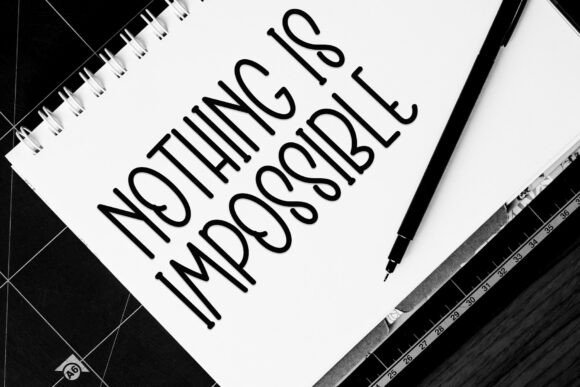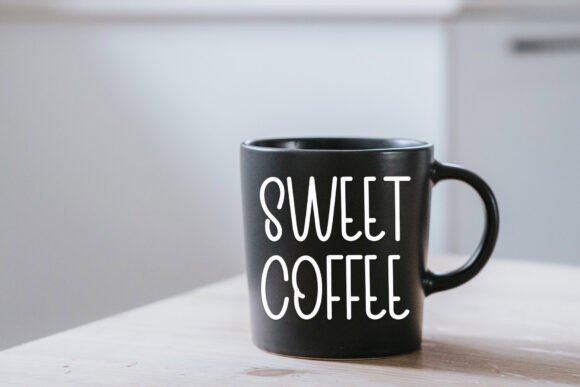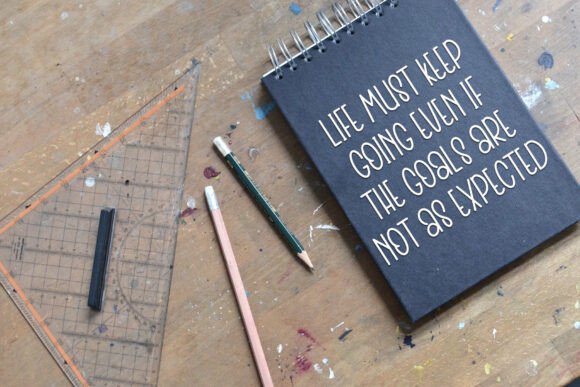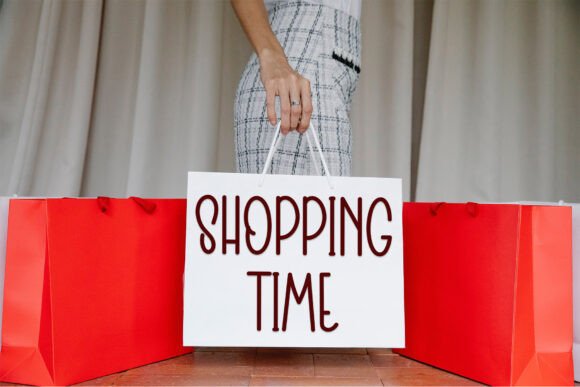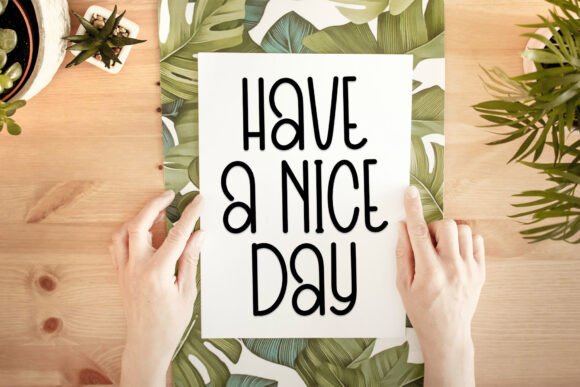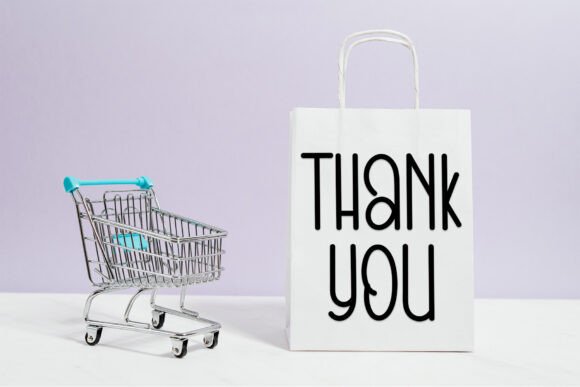
Introducing Farmhouse Vintage Font: Elevate Your Designs with Elegance
Are you a designer, crafter, or DIY enthusiast looking for a font that adds a touch of sophistication and charm to your projects? Look no further than the Farmhouse Vintage Font. This delicate, elegant, and flowing display font is perfect for bringing your most creative ideas to life.
A Delicate and Elegant Display Font
Farmhouse Vintage Font boasts beautiful and well-balanced characters that make it an excellent choice for a wide range of designs. Whether you’re working on a rustic-themed project, a vintage-inspired craft, or a modern design that requires a touch of elegance, this font is sure to impress. Its flowing lines and delicate curves add a level of sophistication that will elevate your designs and make them stand out.
One of the standout features of Farmhouse Vintage Font is its versatility. It matches a wide pool of designs, making it an excellent addition to your font collection. From rustic wood signs and vintage-inspired crafts to modern branding and packaging designs, this font can be used in a variety of projects. Its neutral yet elegant style ensures that it will complement your designs without overpowering them.
Whether you’re a professional designer or a crafter who loves to create unique DIY projects, Farmhouse Vintage Font is an excellent choice. Its elegant style and versatility make it perfect for a range of applications, including:
- Rustic wood signs and home decor projects
- Vintage-inspired crafts and DIY projects
- Modern branding and packaging designs
- Wedding and event invitations
- Stationery and paper crafts
Tips for Using Farmhouse Vintage Font
To get the most out of Farmhouse Vintage Font, here are a few tips:
- Use it as a display font to add a touch of elegance to your designs
- Experiment with different font sizes and colors to create visual interest
- Pair it with other fonts to create a unique and eye-catching combination
Farmhouse Vintage Font is a beautiful and versatile display font that can elevate your designs and bring your creative ideas to life. Its delicate, elegant, and flowing style makes it perfect for a wide range of projects, from rustic-themed crafts to modern branding and packaging designs. With its PUA coding and easy access to glyphs and ligatures, this font is a must-have for designers and crafters. Add Farmhouse Vintage Font to your collection today and discover new creative possibilities!